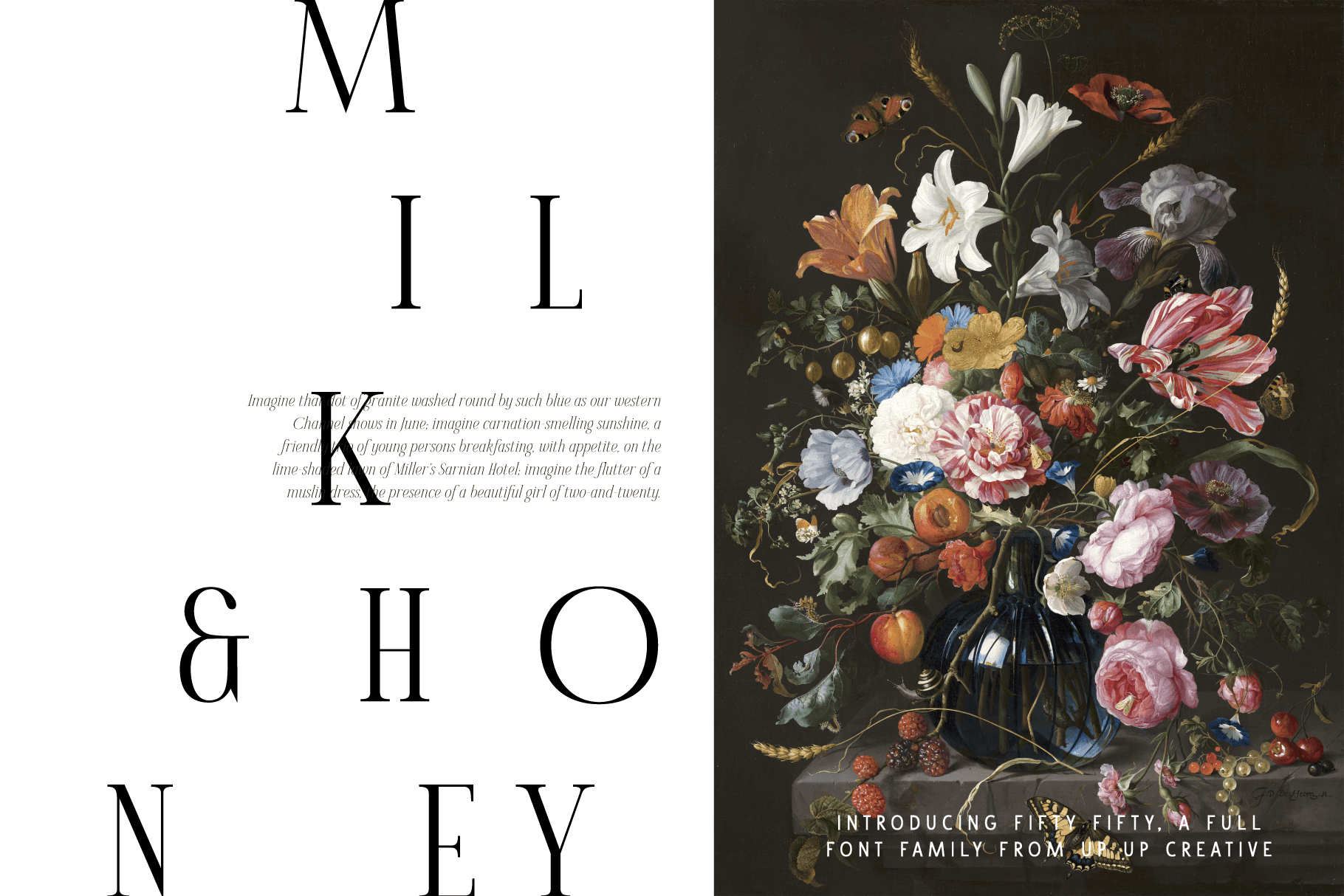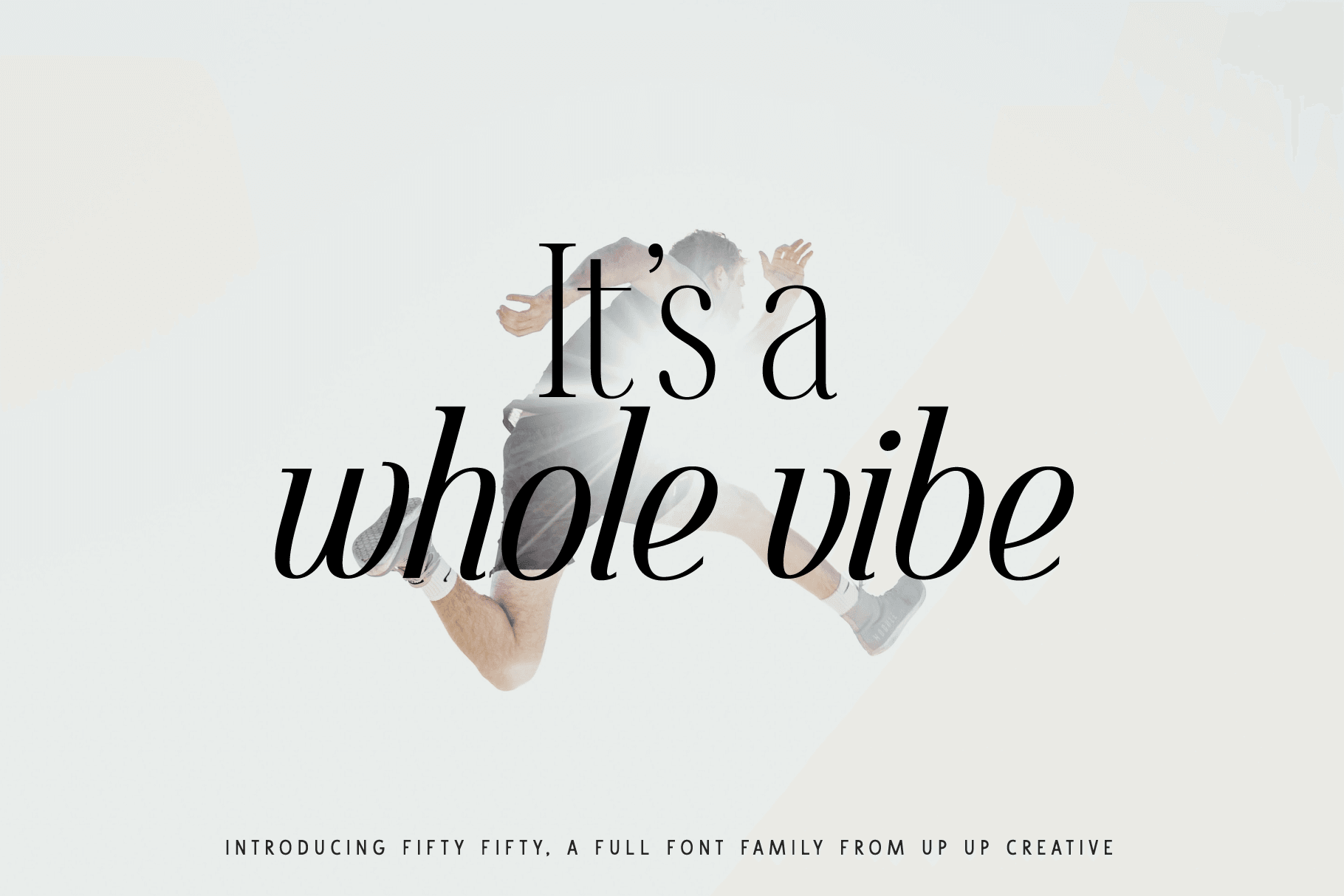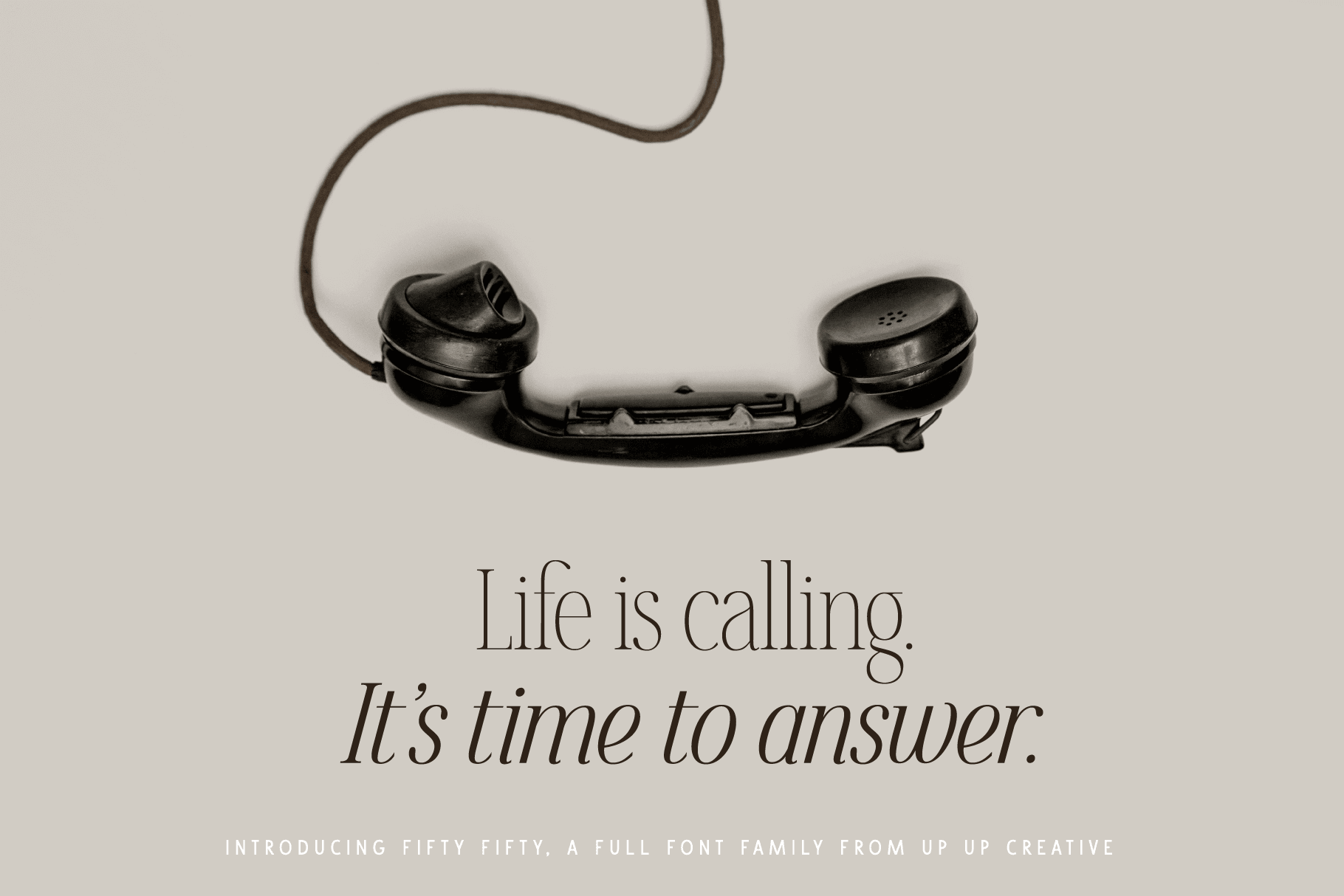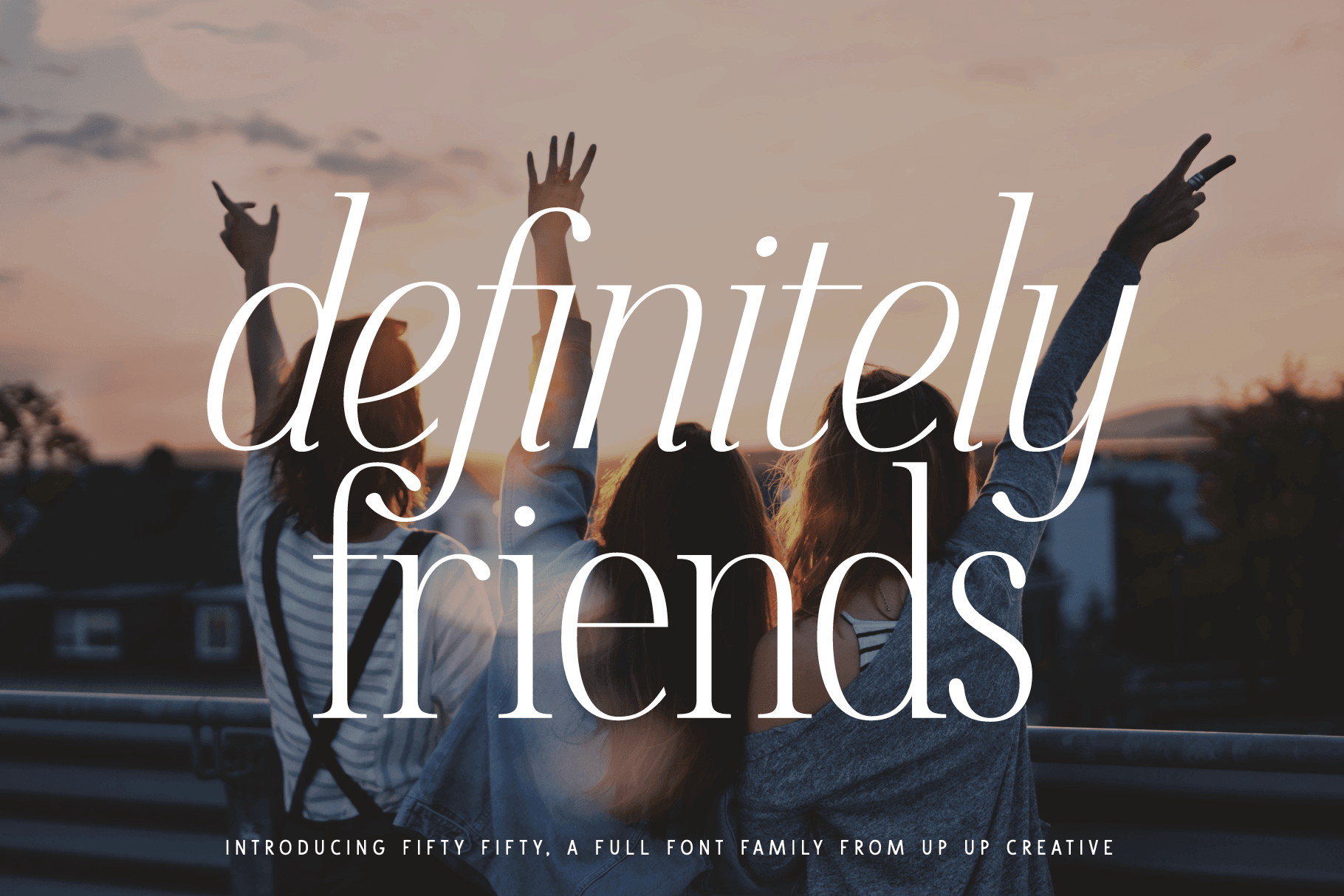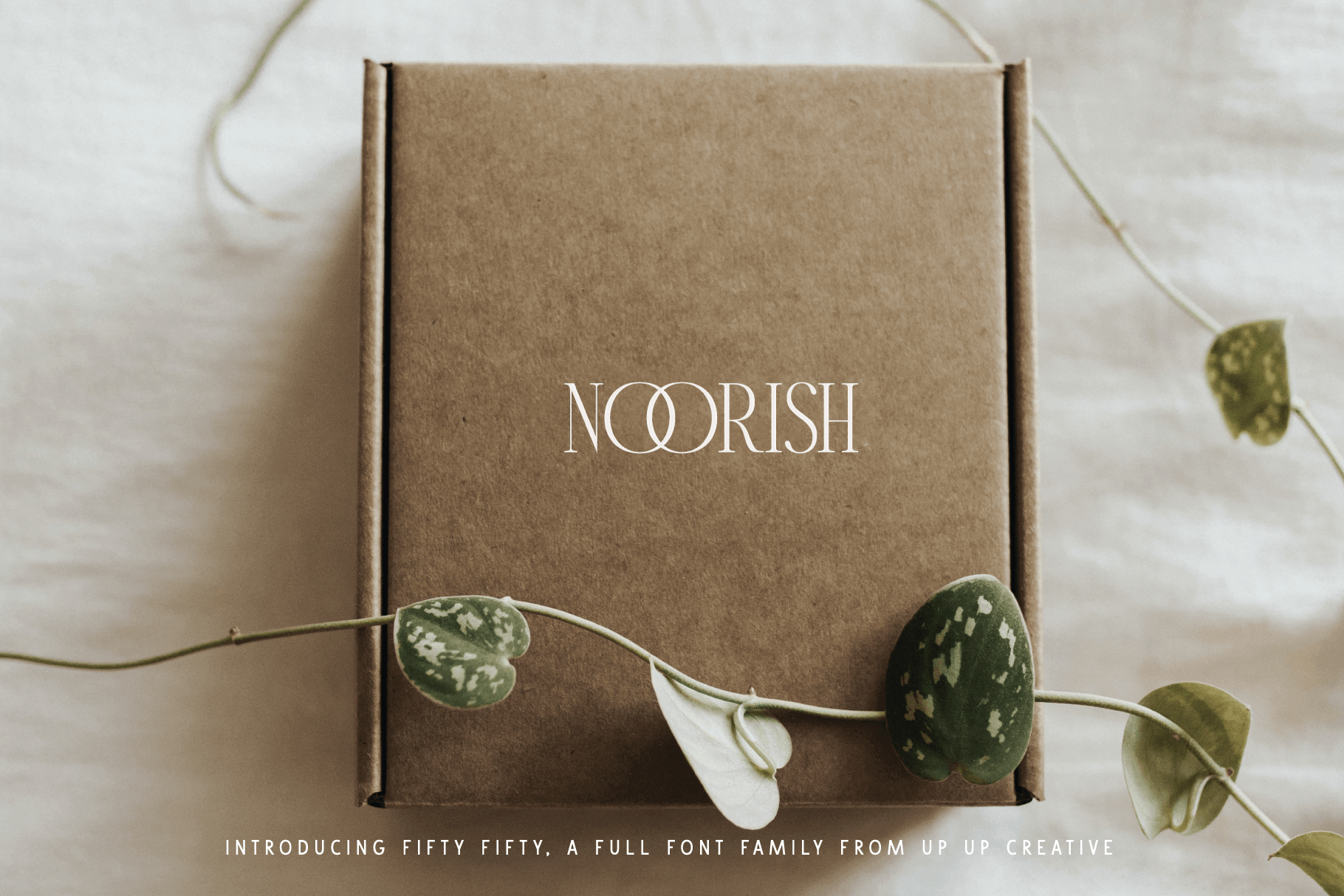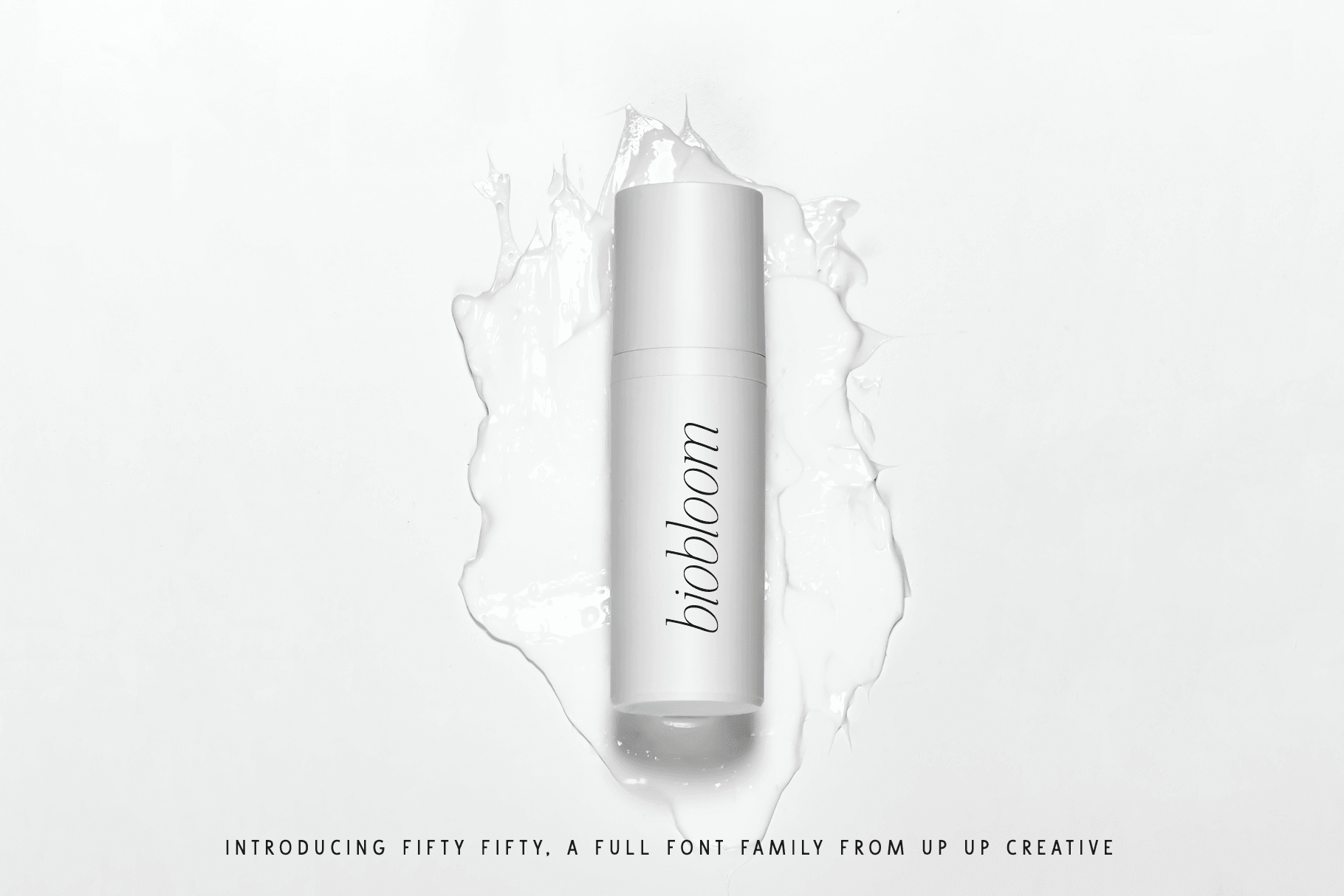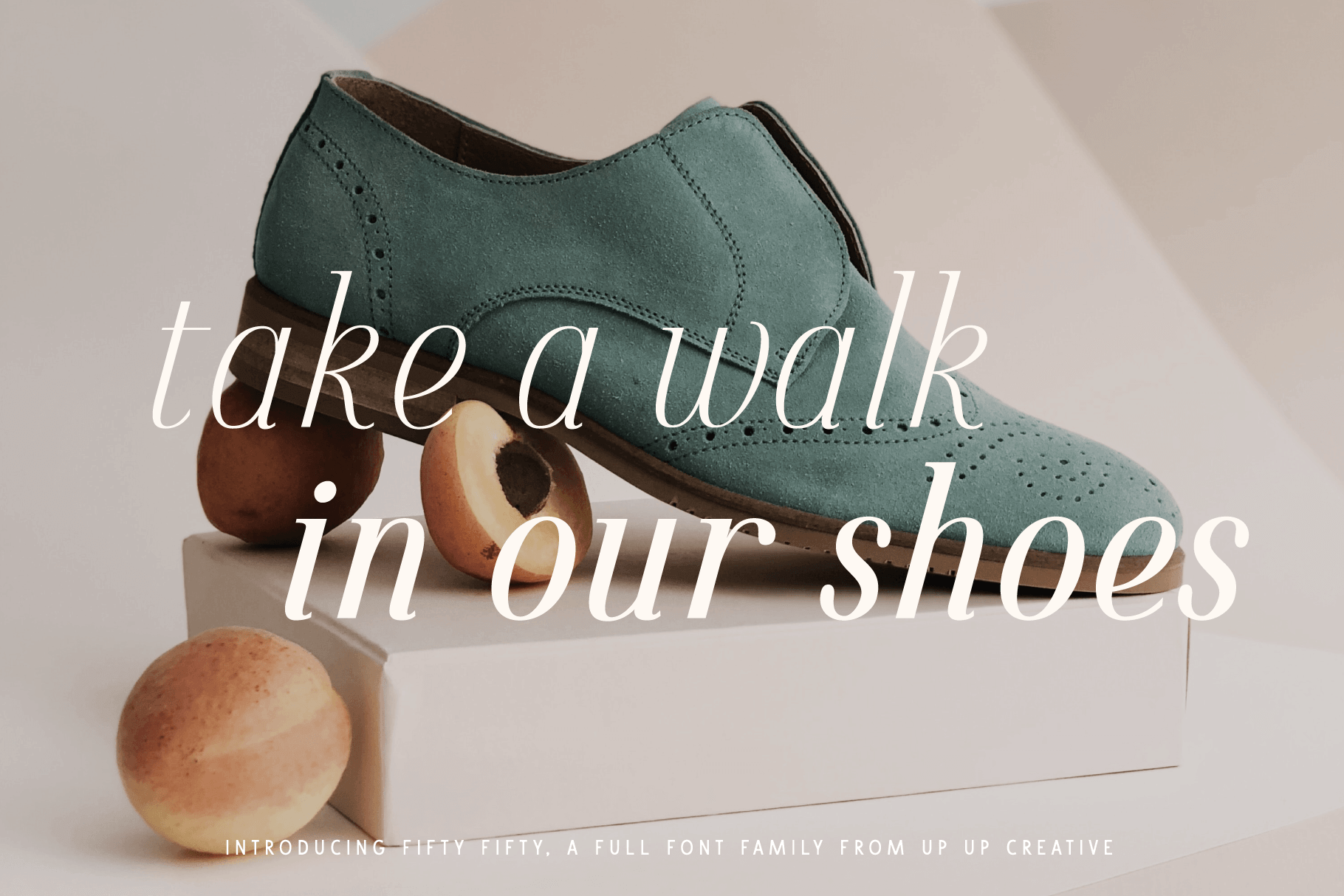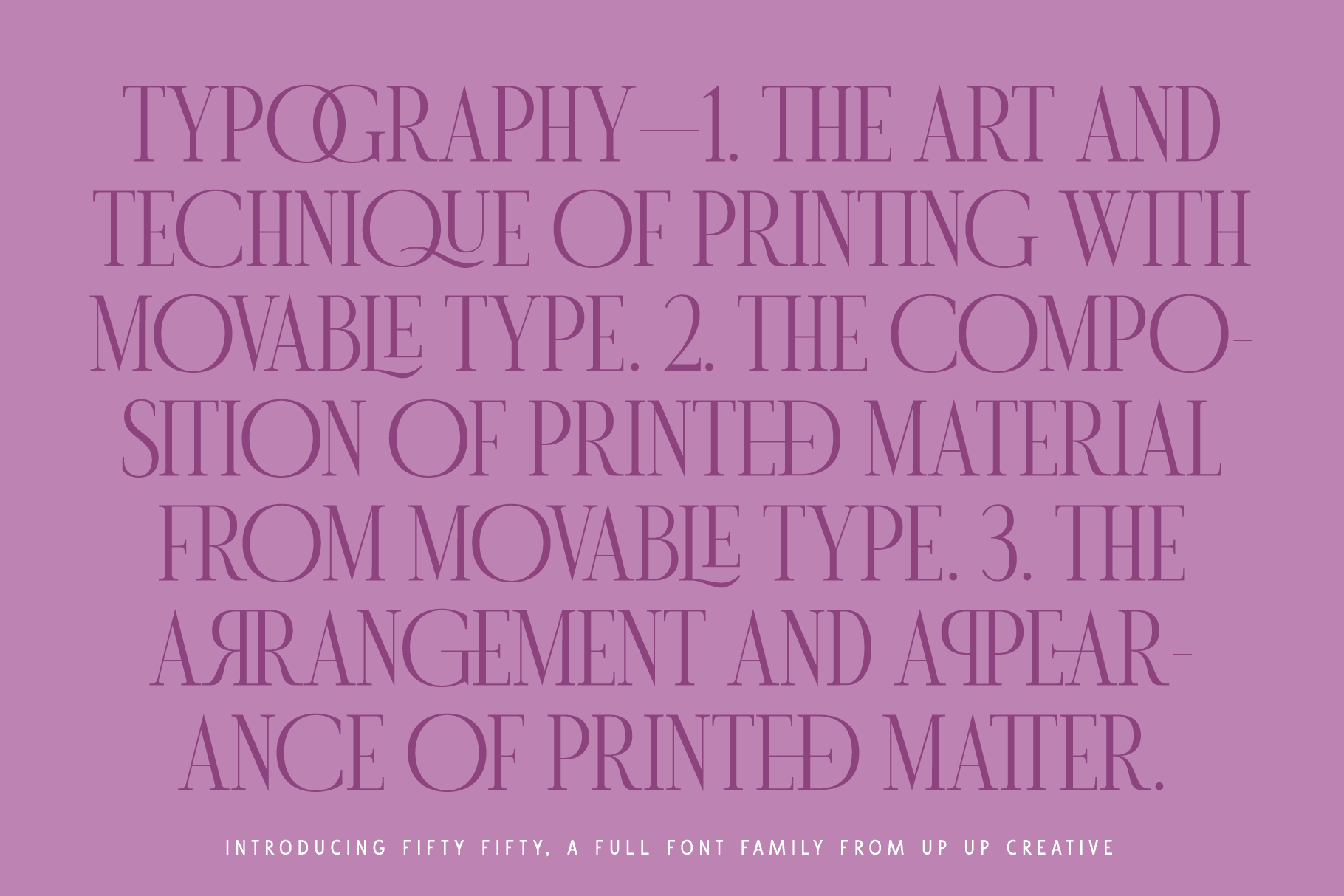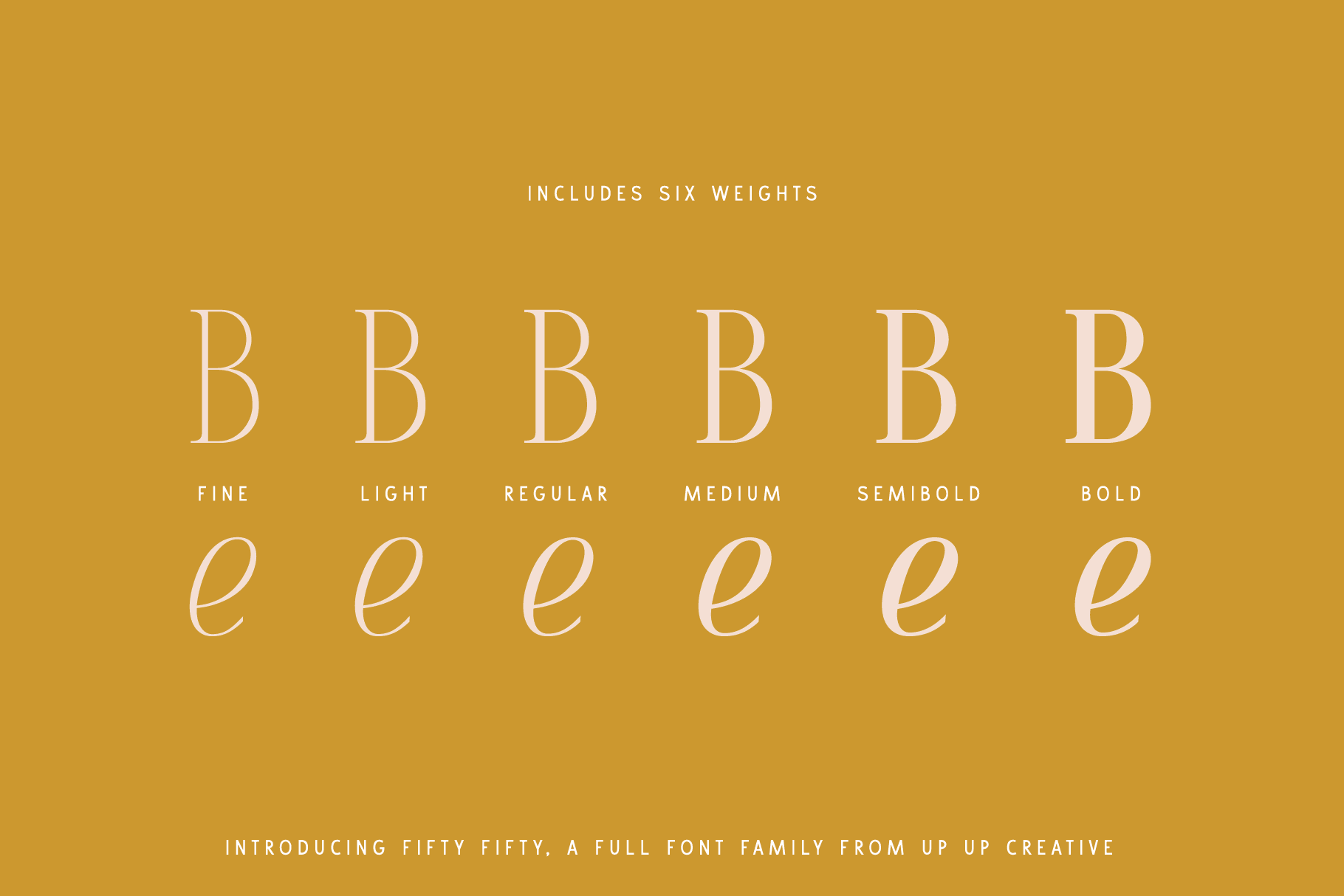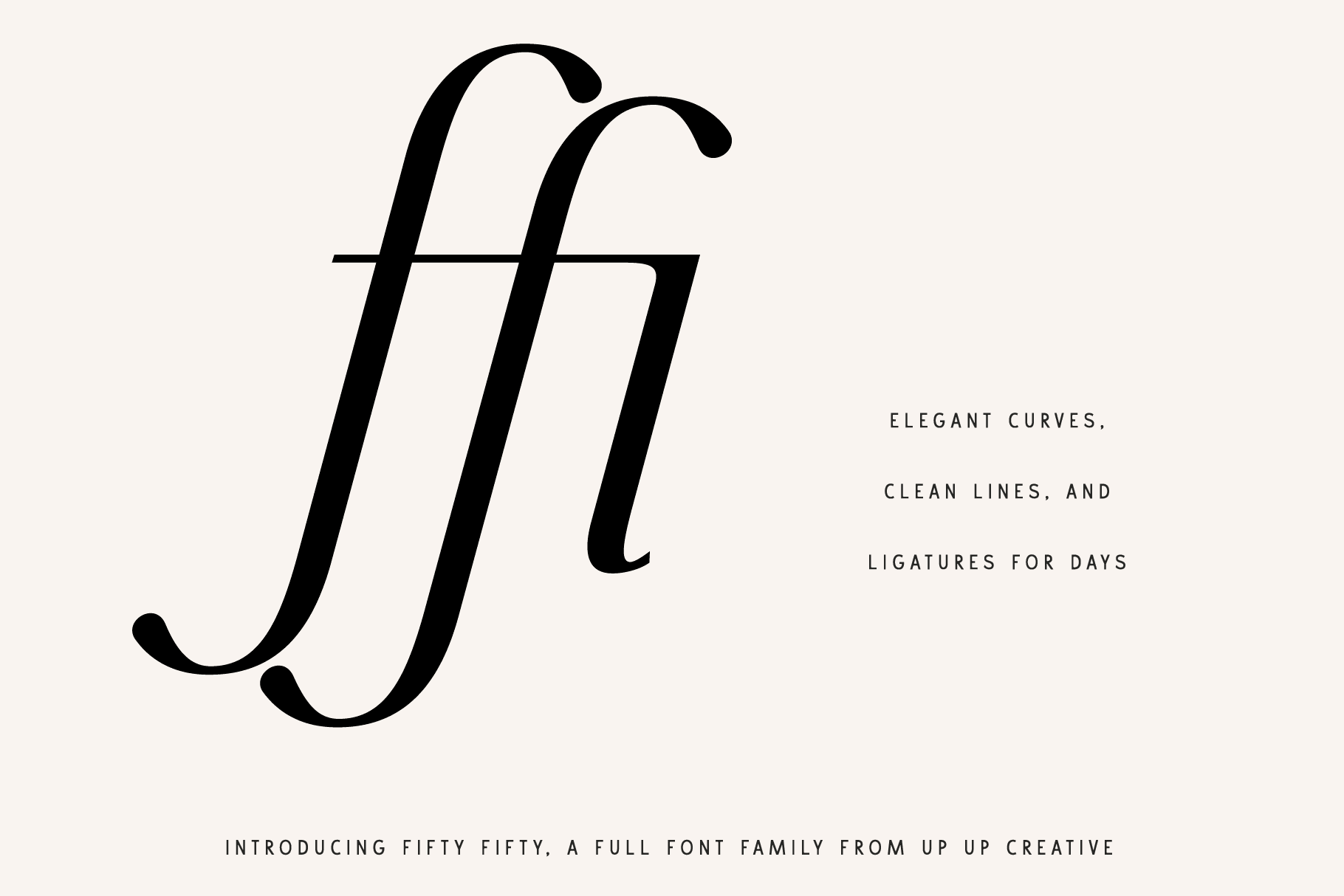
Fifty Fifty Serif Font Family with Italics
** NEW IN 2025: Fifty Fifty has been expanded into a multi-weight family.
Fifty Fifty is an editorial serif font (regular and italic) with smooth curves and more than 100 ligatures. It’s gorgeous in all caps, but the lowercase letters can really hold their own. Fifty Fifty is perfect for headlines, editorial design, monograms, branding, logos, poster design, and more.
Fifty Fifty includes the following OpenType features:
- character variants
- standard and discretionary ligatures
- lining figures, tabular figures, and oldstyle figures
- localized forms (multi-language and multi-currency support)
- fractions, ordinals, and superscripts
- stylistic sets
Includes 117 ligatures
- Includes 699 glyphs
- Italic and Roman (Upright), each in six weights